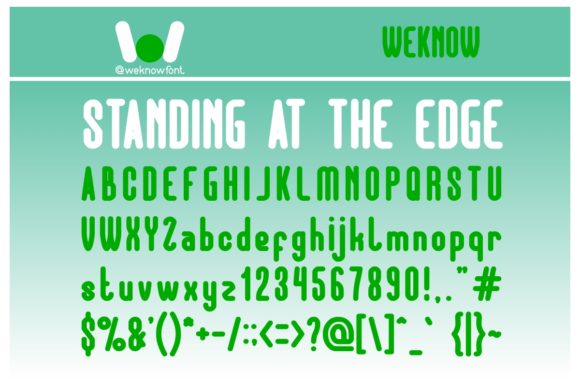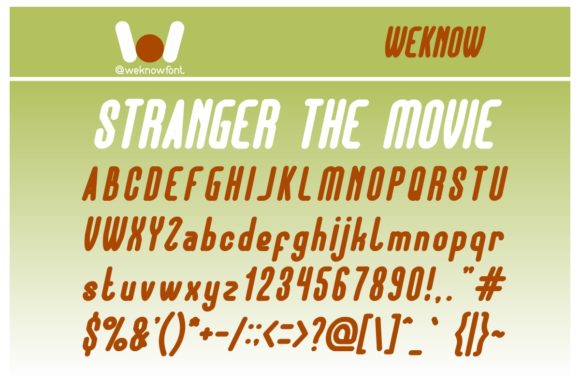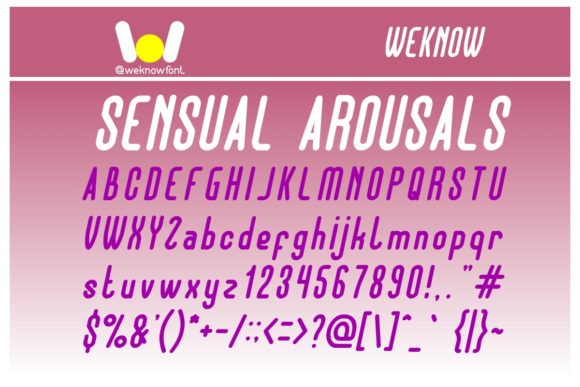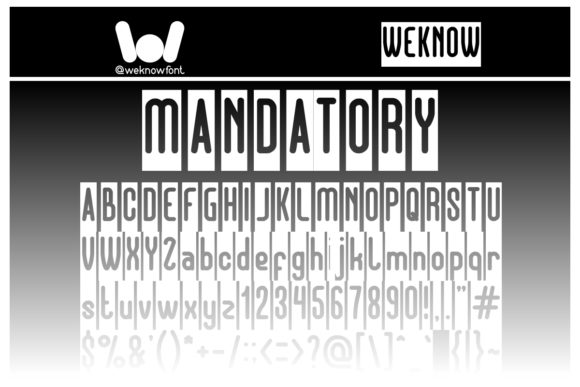
Enter the Hotel Motel Font, a tall and minimal display font designed to elevate any branding, product packaging, invitation, or quote. With its sleek and modern aesthetic, this font is perfect for creating a lasting impression. Whether you’re working on a logo, t-shirt design, or label, the Hotel Motel Font is a valuable addition to any designer’s toolkit. Its versatility and sophistication make it a must-have for any creative project.
Hotel Motel Font Key Features
- Font Family: Hotel Motel is a sans-serif font family.
- Resolution: Optimized for screen use at resolutions up to 300 DPI, making it ideal for digital applications.
- Unique Characteristics: Features a modern and clean design, with a subtle rounded edge to the letterforms, giving it a friendly and approachable feel.
- Font Size: The font family includes multiple weights, ranging from Thin (100) to Extra Bold (800), allowing for a wide range of design possibilities.
Hotel Motel Font Review
Overall, I think Hotel Motel Font is a decent choice for typography, but it’s not without its limitations.
- ✨ Friendly and approachable feel: The font is designed to evoke a sense of warmth and welcoming, which is perfect for hospitality and tourism-related projects.
- ✨ Customizable: Hotel Motel Font comes in several weights, from light to bold, giving designers the flexibility to match the tone and style of their project.
- ✨ Clear and legible: The font is well-designed for body text, making it easy to read even at smaller sizes.
- ⚠️ Limited expressiveness: While Hotel Motel Font is great for hospitality projects, it may not be the best choice for more formal or professional settings, where a more sophisticated font might be preferred.
- ⚠️ Not ideal for headings: While the font has a bold weight, it’s not the most striking or attention-grabbing choice for headings, which may require a more dramatic font to stand out.
In conclusion, Hotel Motel Font is a solid choice for designers working on hospitality-related projects, but it may not be the best fit for more complex or formal typography needs.
The Hotel Motel font is commonly used for:
1. Retro-themed designs and branding.
2. Travel and hospitality industry logos and marketing materials.
3. Vintage-inspired posters and advertisements.
1. Use the Hotel Motel font in combination with other retro-themed fonts for a cohesive look.
2. Experiment with different font sizes and styles to create visual interest.
3. Pair the font with bold, bright colors to create a striking design.
Alternatives to Hotel Motel Font for Designers
1. Rockwell Font
The Rockwell font is a serif font designed in the 1930s. It is known for its classic and elegant feel, making it suitable for formal and professional designs. Rockwell is a great alternative to Hotel Motel Font when you need a font with a similar classic feel but with a more refined and sophisticated look.
Comparison: Rockwell is more formal and elegant compared to Hotel Motel Font, which has a more casual and nostalgic feel.
2. Playfair Display Font
The Playfair Display font is an elegant and luxurious serif font designed for headings and titles. It is perfect for designs that require a touch of sophistication and elegance. Playfair Display is a great alternative to Hotel Motel Font when you need a font with a similar vintage feel but with a more luxurious and high-end look.
Comparison: Playfair Display is more luxurious and elegant compared to Hotel Motel Font, which has a more casual and nostalgic feel.